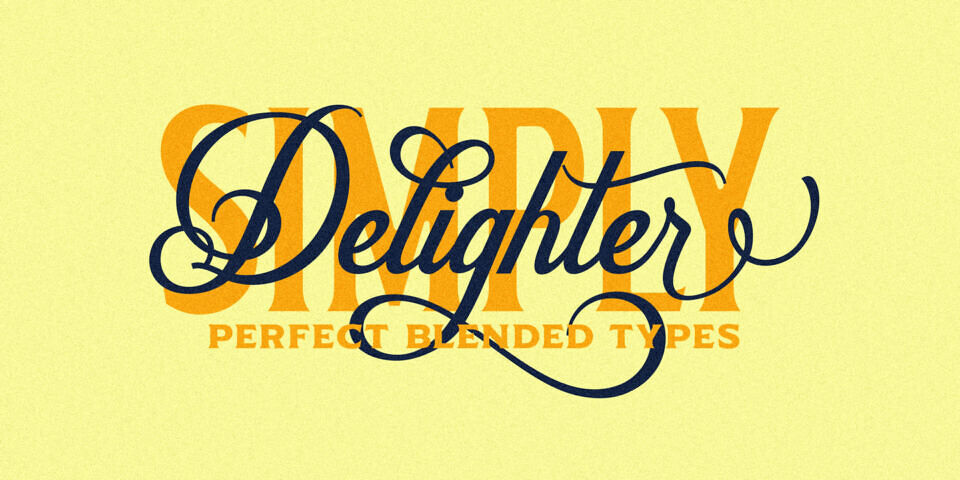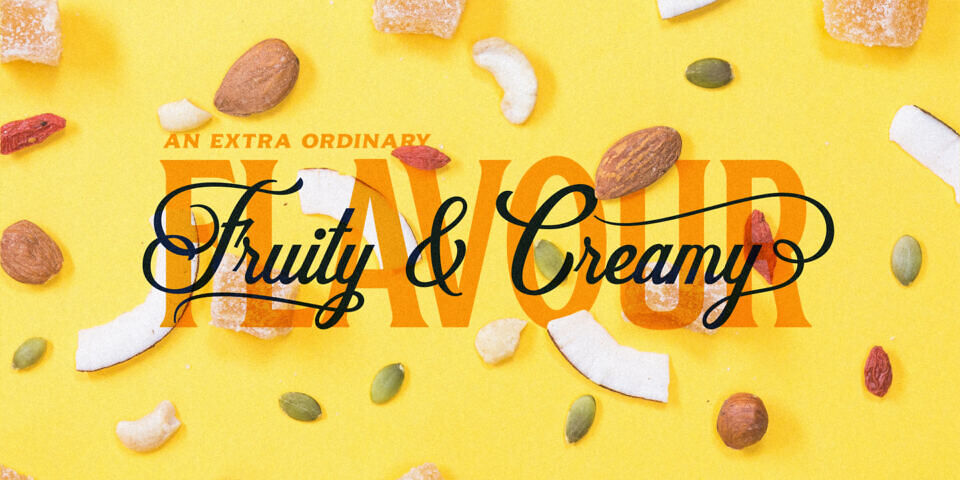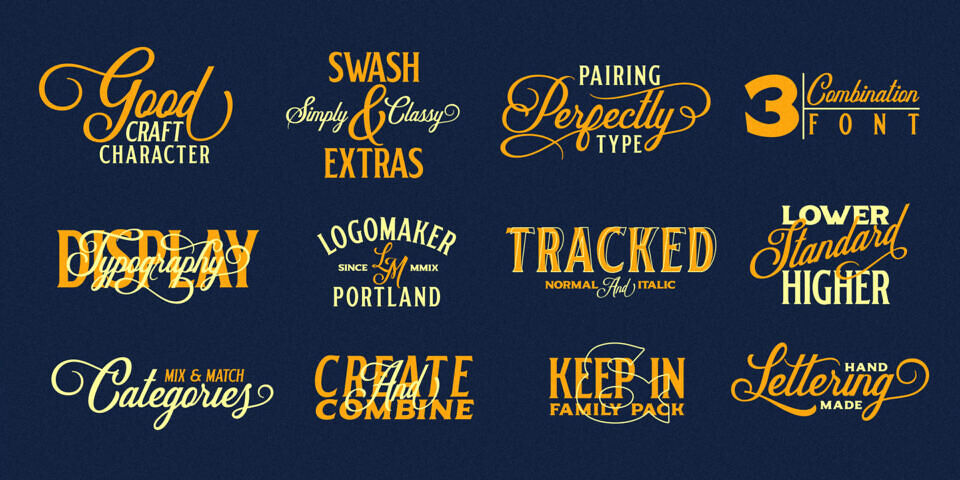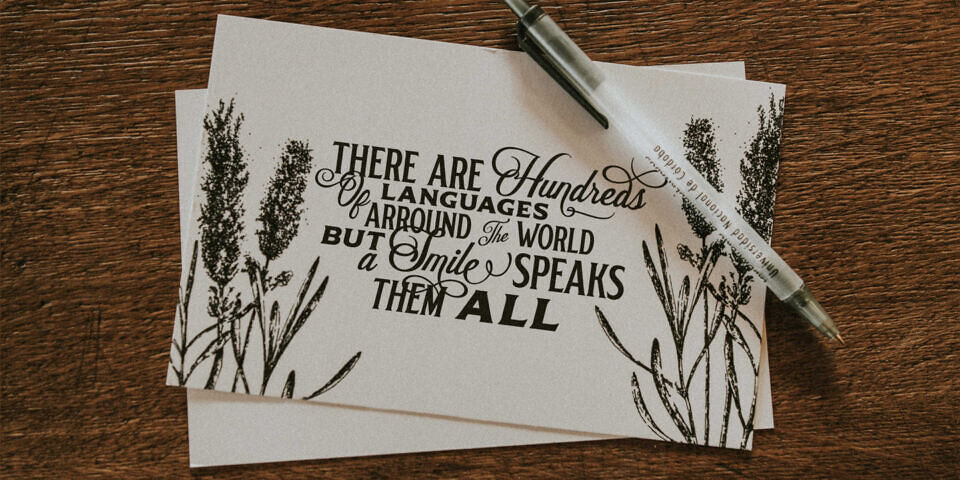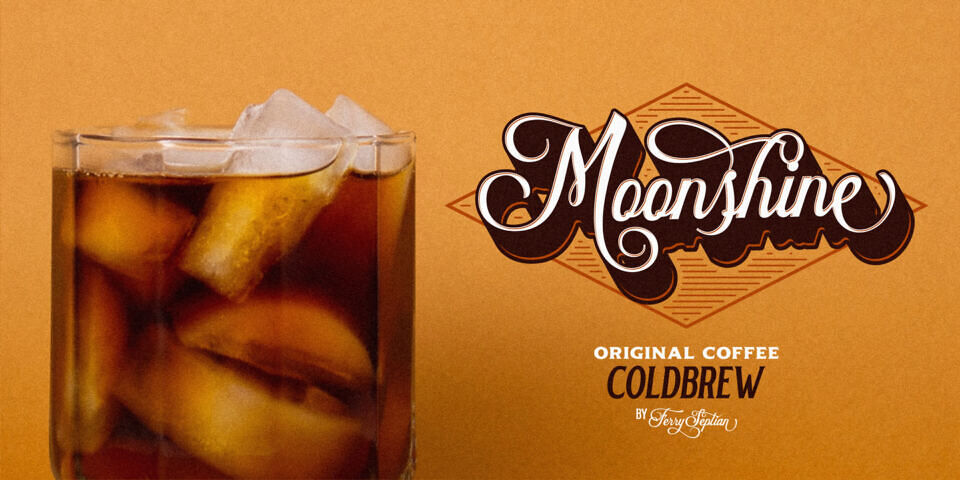
Delighter Script Font
Delighter Script is simply perfect blended fonts with 3 style. Including 10 font and extras. Delighter is inspired from many lettering, poster, quotes, logos and brands. It’s perfect for advertising, magazines, editorial, poster, branding, logo type, header, titles, packaging, display etc. A good combination for helping your design, just mix and match and you’ll be very authentic.